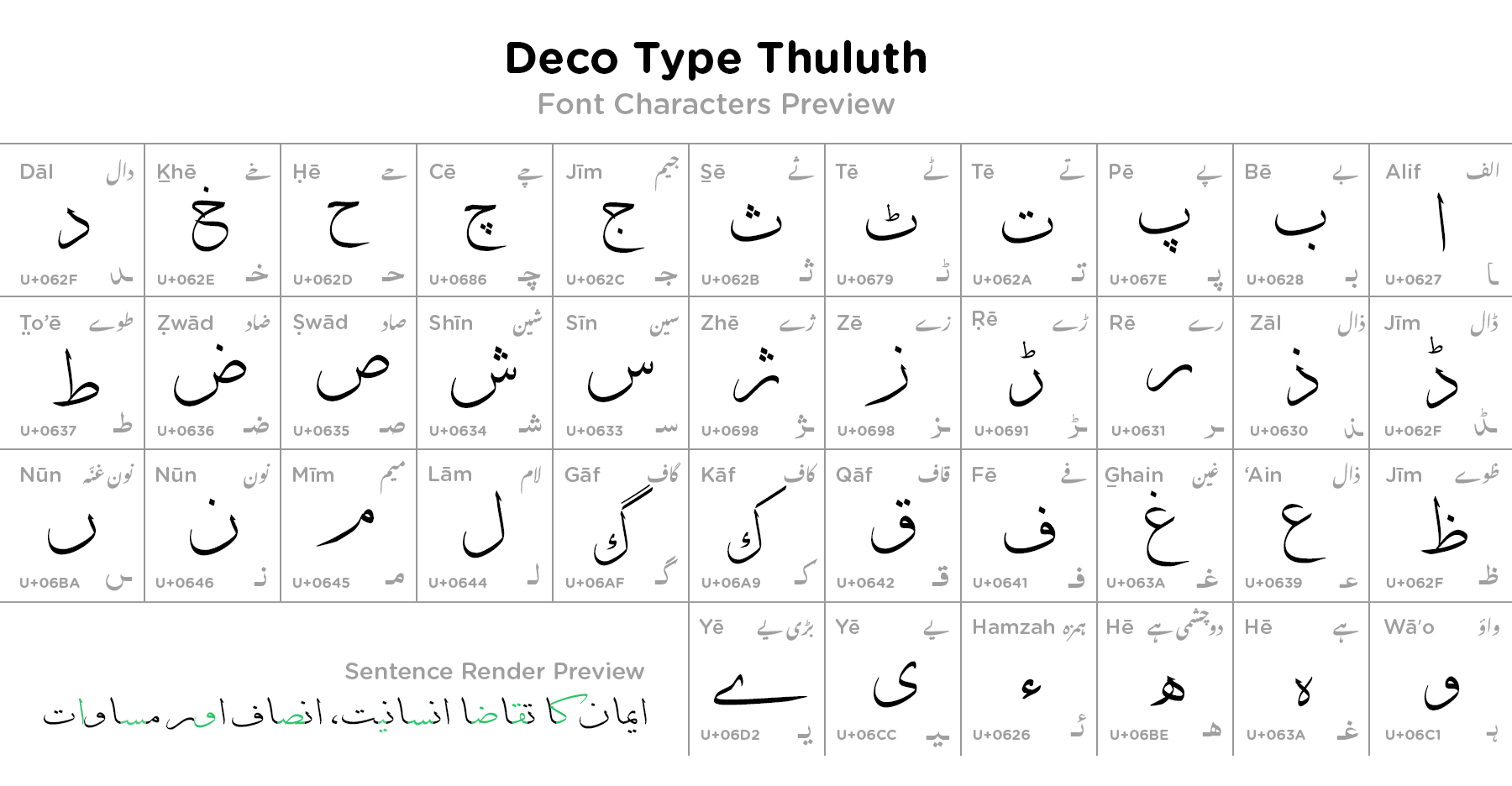
DecoType Thuluth, crafted by designer Mojtaba Kia and available via DecoType, is an Arabic font inspired by the classic Thuluth script. With 385 characters and symbols, it seamlessly supports Urdu, Arabic, Latin, and Persian languages thanks to its Unicode compatibility. The font's style blends bold strokes with decorative elements, like dashes and swashes, creating a visually captivating effect.
While DecoType Thuluth is perfect for making a bold statement, its decorative nature can make prolonged reading challenging. It is perfect for short text blocks, especially for headlines and taglines, where its commanding presence is most effective. It balances strength and elegance, featuring thick strokes and delicate lines. With clean lines, rounded curves, and balanced spacing, the font maintains clarity and readability across various applications. Whether for branding, logos, calligraphy, or decorative projects such as book covers and invitations, this font offers a distinctive visual identity that grabs attention and leaves a lasting impression.